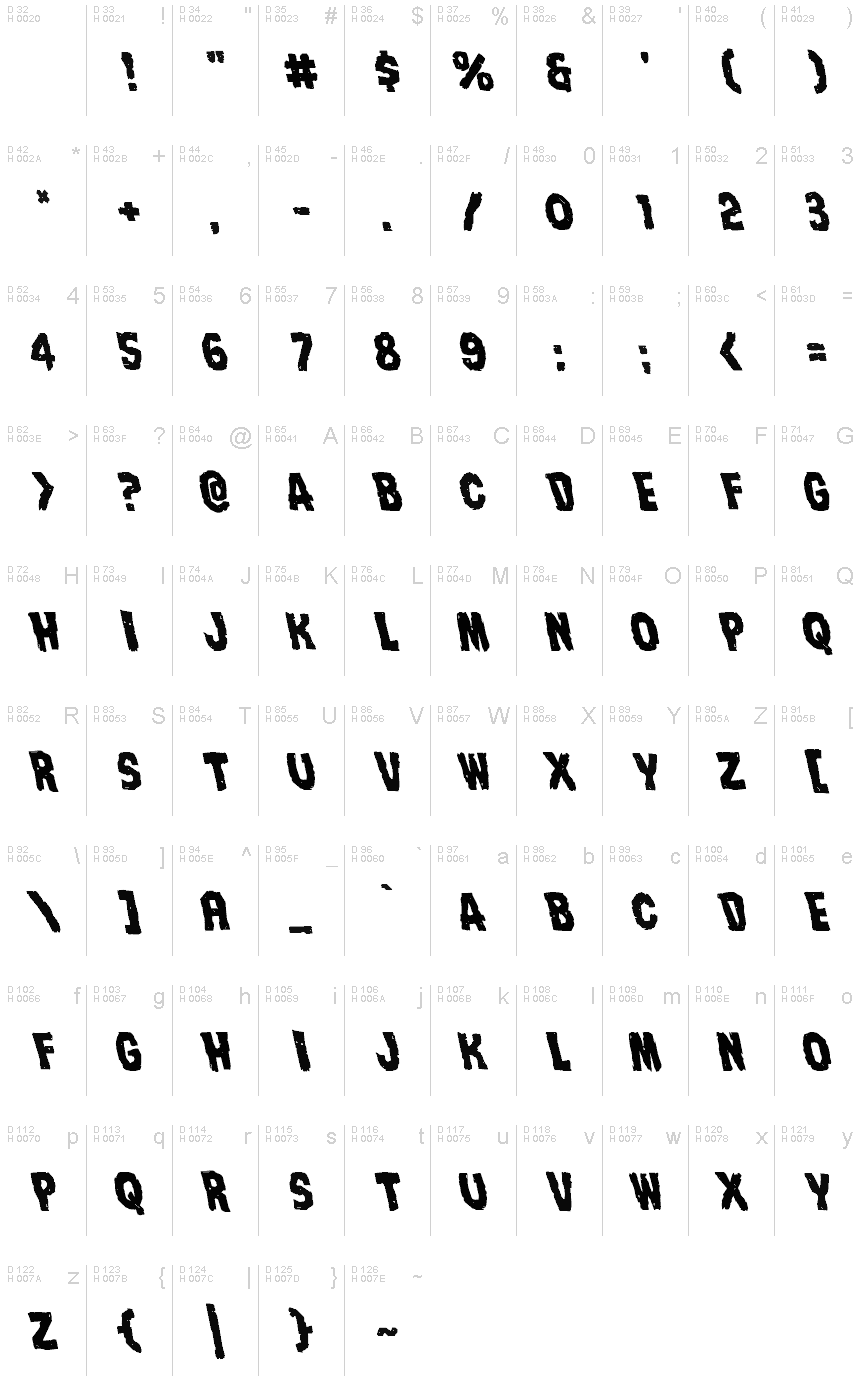
Nightmare Alley Leftalic
Nightmare Alley is a bold, condensed display font that exudes an undeniable air of horror and suspense. Crafted by Daniel Zadorozny, this typeface commands attention with its jagged, otherworldly letterforms and an unsettling, distressed aesthetic. The Leftalic style further amplifies the sense of unease, lending a dynamic, asymmetrical quality to the text.
This font's distinctive style makes it a versatile choice for a wide range of applications, from movie posters and book covers to Halloween-themed branding and packaging. Its powerful visual impact ensures that Nightmare Alley will leave a lasting impression on any design project that seeks to evoke a sense of the supernatural or the macabre.